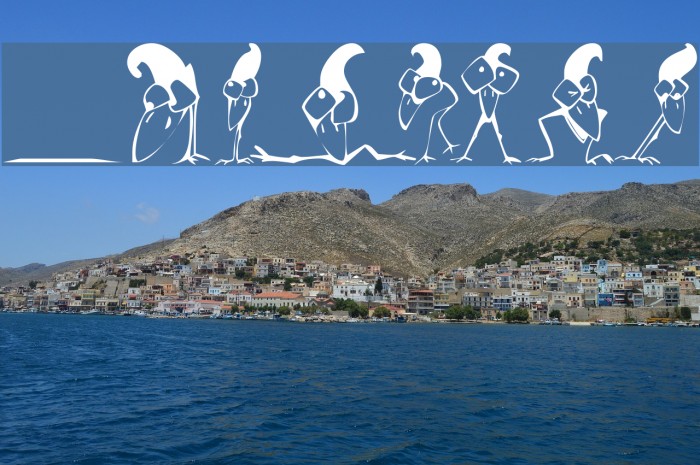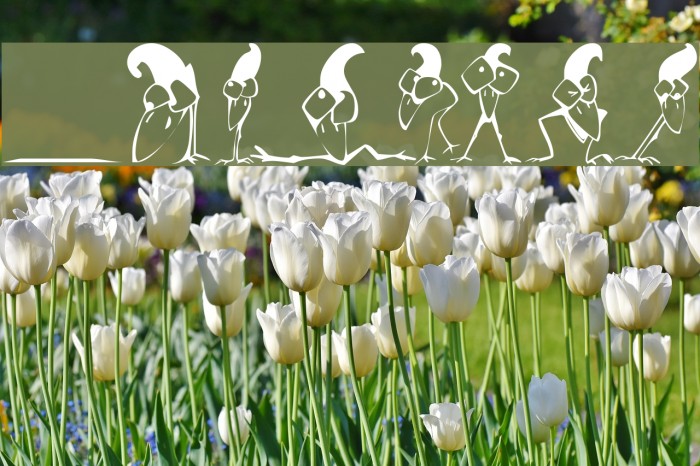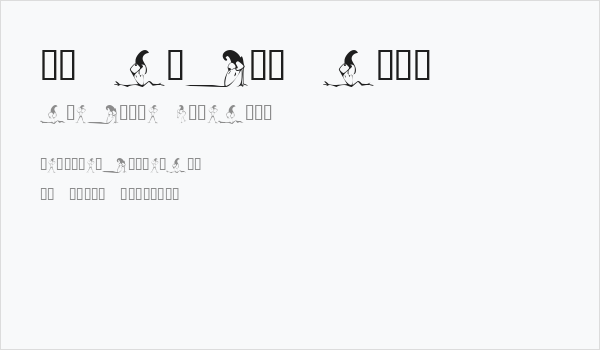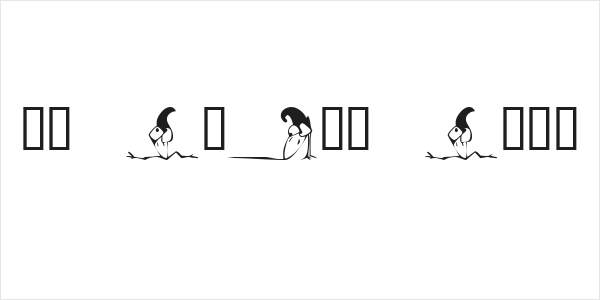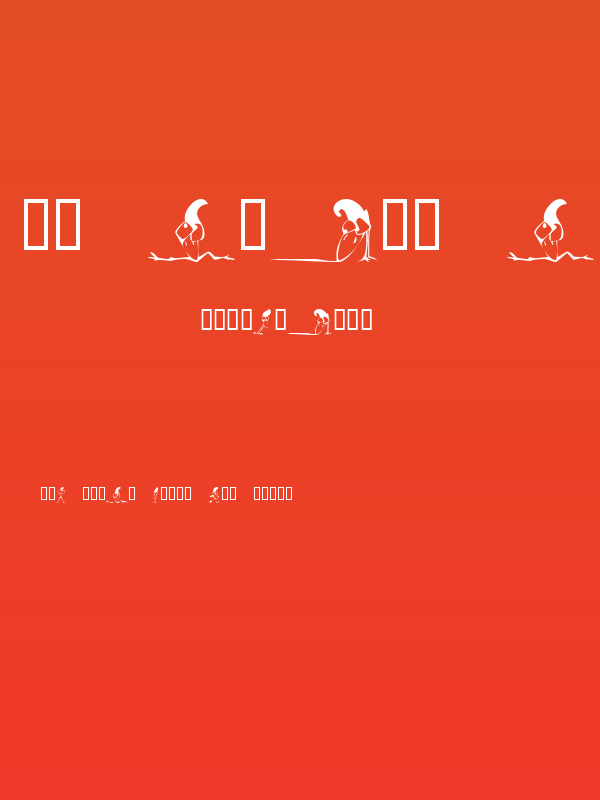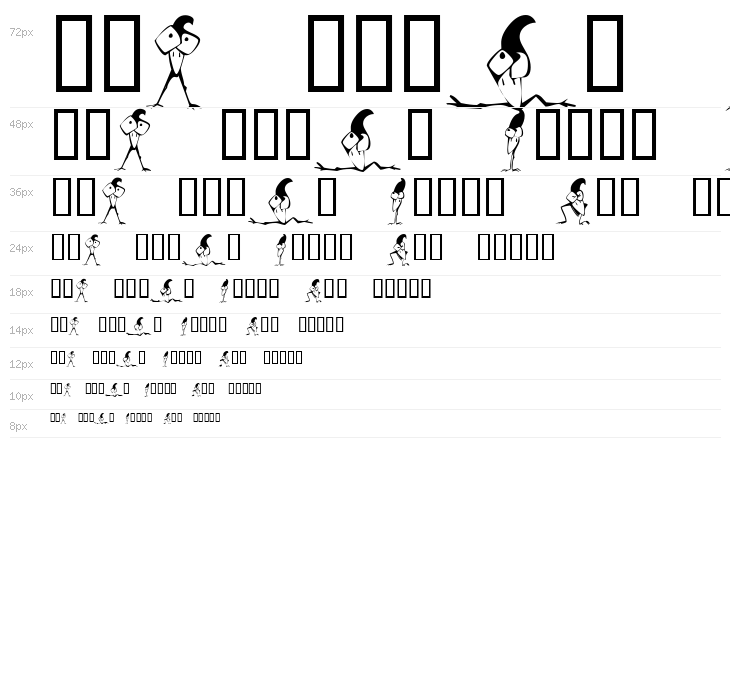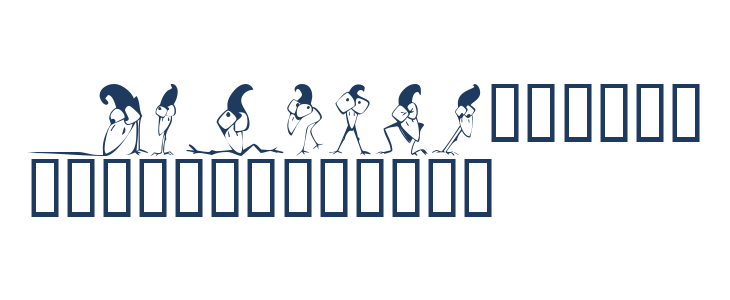
KR Crazy Crow Font
KR Crazy Crow Description
This whimsical and playful font features a series of cartoon crows, each with a unique and exaggerated expression. The characters are creatively designed, with each crow displaying a different pose or gesture, adding a lively and humorous touch. The font is highly decorative, focusing on visual storytelling rather than traditional letterforms. It is ideal for projects that require a fun and engaging aesthetic, capturing attention with its animated style. The crows are drawn with bold outlines and expressive features, making them stand out distinctly. This font is not suitable for body text but excels in creating a memorable visual impact.
| Overall Style | Humorous, Playful, Cartoonish |
| Use Case | Logos, Posters, Invitations |
| Proposed Projects | Ideal for children's books, playful posters, themed party invitations, or any project needing a humorous touch. |